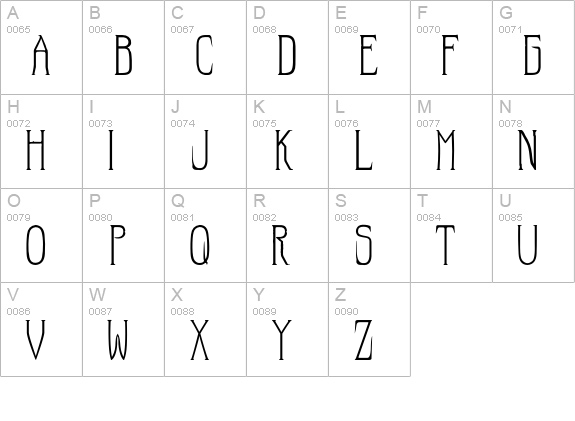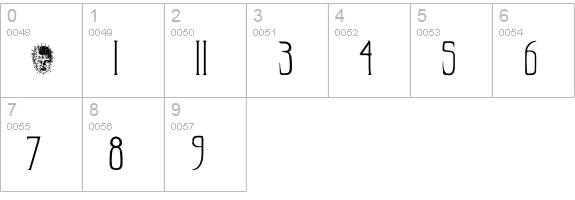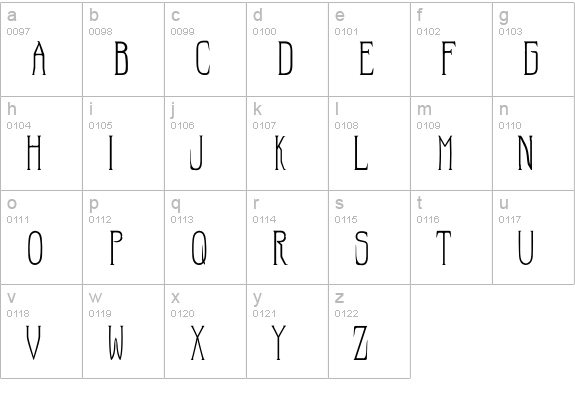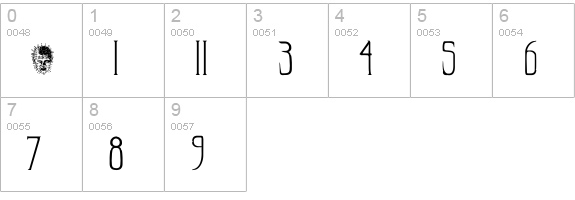
Hellraiser SC Font Details
Introducing Hellraiser SC, a captivating and edgy font that will unleash your creativity and add a touch of darkness to your designs. With its sharp angles and twisted lines, this font embodies the essence of horror and intrigue. Hellraiser SC is the perfect choice for those looking to make a bold statement. Its unique and intricate letterforms are inspired by the twisted and macabre elements found in the depths of hell itself. Each character has been meticulously crafted to exude a sense of foreboding and mystery, making it ideal for horror-themed projects, gothic designs, or anything that requires a touch of the supernatural. But what sets Hellraiser SC apart is not just its haunting aesthetics, but also its accessibility. This font is freely available to download at FontsMarket.com, allowing you to bring your sinister visions to life without breaking the bank. Whether you're working on a poster for a horror film, designing a spooky Halloween party invitation, or creating a chilling book cover, Hellraiser SC will undoubtedly captivate your audience and leave a lasting impression. Its versatility and legibility make it suitable for both digital and print mediums, ensuring that your message is conveyed with clarity and impact. So, why settle for ordinary when you can embrace the extraordinary? Download Hellraiser SC now from FontsMarket.com and let your imagination run wild with this free font that will take your designs to the depths of hell and back.